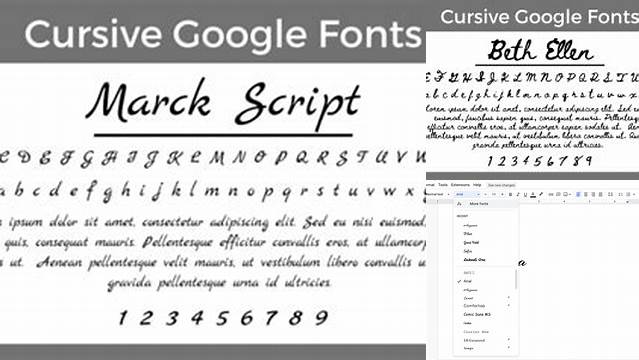
Messy Cursive Fonts In Google Docs: A Typography Guide
Hey guys! Ever felt like your Google Docs could use a little extra flair? I mean, the standard fonts are cool and all, but sometimes you need something that screams personality, right? That's where messy cursive fonts come in! They add a touch of handwritten charm and can make your documents stand out from the crowd. In this guide, we're going to dive deep into the world of messy cursive fonts on Google Docs. We'll cover everything from finding the perfect font to using it effectively in your documents. So, buckle up and get ready to transform your Google Docs into works of art!
Why Choose Messy Cursive Fonts?
Messy cursive fonts, also known as handwritten fonts, offer a unique alternative to traditional typefaces, bringing a distinctive personality and warmth to any document. Unlike the structured and sometimes sterile appearance of standard fonts, messy cursive fonts mimic the fluidity and imperfections of real handwriting. This can create a more personal and engaging reading experience. In situations where a touch of informality or creativity is desired, these fonts can be particularly effective. For instance, they work wonderfully in invitations, personal letters, creative writing projects, or even headings that need to capture attention. The charm of messy cursive lies in its ability to convey authenticity, making the content feel more human and approachable. However, it's crucial to use these fonts judiciously. Overuse can diminish their impact and even reduce readability. Therefore, understanding how and when to incorporate them is key to enhancing your document's overall aesthetic and message. This guide will walk you through the nuances of selecting and using messy cursive fonts in Google Docs, ensuring your documents achieve the desired effect without sacrificing clarity or professionalism.
The Appeal of Handwritten Fonts in Digital Documents
The allure of handwritten fonts in digital documents stems from their ability to bridge the gap between the digital and the personal. In our increasingly digitized world, there's a growing appreciation for elements that evoke human touch and authenticity. Handwritten fonts, with their natural imperfections and variations, provide this connection. They remind us of handwritten notes and letters, which carry a sense of intimacy and care that standard digital fonts often lack. This is particularly valuable in contexts where you want to create a sense of personal connection, such as thank-you notes, invitations, or creative projects. Furthermore, handwritten fonts can add a unique visual appeal to documents, making them stand out from the ordinary. They can convey creativity, informality, and a personal touch, which can be especially effective in marketing materials or branding efforts. However, the key to successfully using handwritten fonts lies in balance. Overusing them can lead to a cluttered and difficult-to-read document, defeating their purpose. The trick is to use them strategically, perhaps for headings or short phrases, and to pair them with more legible fonts for the main body of text. By doing so, you can harness the charm of handwritten fonts while maintaining a professional and readable document.
Finding Messy Cursive Fonts in Google Docs
Okay, so you're sold on the idea of messy cursive fonts, but where do you find them in Google Docs? Don't worry, it's easier than you think! Google Docs has a decent selection of fonts built-in, and you can also add tons more from Google Fonts. Let's break it down:
Built-in Fonts
Google Docs comes with a variety of built-in fonts, including some that have a cursive or handwritten feel. To access these, simply click on the font dropdown menu in the toolbar (it usually shows the current font, like Arial or Times New Roman). Scroll through the list, and you'll find options like "Dancing Script," "Pacifico," and "Lobster." These are great starting points if you want a quick and easy way to add a touch of cursive to your document. However, keep in mind that the built-in selection is somewhat limited, so you might want to explore Google Fonts for a wider range of options.
Exploring Google Fonts
Popular Messy Cursive Fonts for Google Docs
Alright, let's talk specific fonts! With so many options out there, it can be overwhelming to choose. Here are a few popular messy cursive fonts that work great in Google Docs:
"Pacifico"
Pacifico is a fun and friendly font that has a retro vibe. It's inspired by the 1950s American surf culture, giving it a casual and playful feel. This font is great for headings, invitations, or anything that needs a touch of lightheartedness. However, it might not be the best choice for large blocks of text, as its flowing curves can become a bit difficult to read in long paragraphs. If you’re looking to infuse your document with a sense of nostalgia and ease, Pacifico is an excellent option. Its rounded, connected letters evoke the carefree spirit of vintage signage and posters, making it perfect for designs that aim to capture a relaxed, retro aesthetic. Whether you're creating a poster for a beach party or adding a friendly touch to a blog header, Pacifico can help you achieve a welcoming and visually appealing result. This font’s unique charm lies in its ability to convey a sense of fun and informality, making it a versatile choice for a variety of creative projects.
"Lobster"
Lobster is another popular choice for its bold and eye-catching style. It's a condensed font with a vintage feel, making it perfect for titles and headings. Think retro diner signs or vintage posters – that's the kind of vibe Lobster gives off. Like Pacifico, it's best used sparingly, as its dramatic style can be overwhelming in large amounts of text. Lobster is particularly effective when used in conjunction with simpler, more legible fonts for body text, creating a balanced and visually engaging design. Its distinct and memorable appearance makes it a go-to choice for projects that need to stand out, such as event posters, promotional materials, or branding elements. If you’re aiming to capture attention and convey a sense of retro cool, Lobster is a font that can help you make a bold statement.
"Dancing Script"
Dancing Script is a lively and informal font that mimics natural handwriting. It has a flowing, rhythmic quality that makes it feel almost like the letters are dancing across the page. This font is perfect for adding a personal touch to invitations, thank-you notes, or creative projects. It's also surprisingly readable, making it a good choice for shorter paragraphs or captions. Dancing Script's elegance and playfulness make it a versatile option for a wide range of applications. Whether you're designing a wedding invitation, crafting a heartfelt letter, or adding a touch of personality to your social media graphics, this font can help you convey warmth and authenticity. Its handwritten style adds a personal touch that can make your message feel more genuine and engaging, making it a favorite among designers and creatives.
So, there you have it! A complete guide to using messy cursive fonts in Google Docs. These fonts can add a ton of personality to your documents, but it's important to use them wisely. Remember to prioritize readability, pair fonts effectively, and consider the overall tone of your document. With a little practice, you'll be a messy cursive font master in no time! Now go forth and create some beautiful, unique documents!